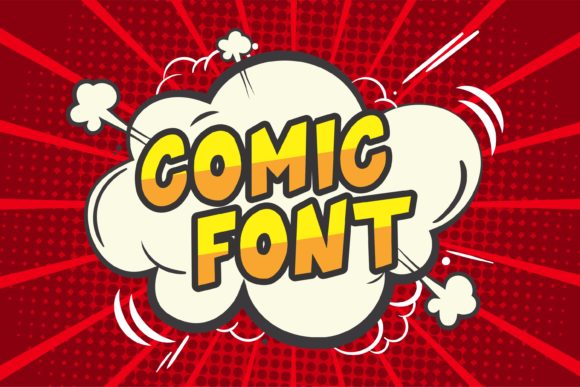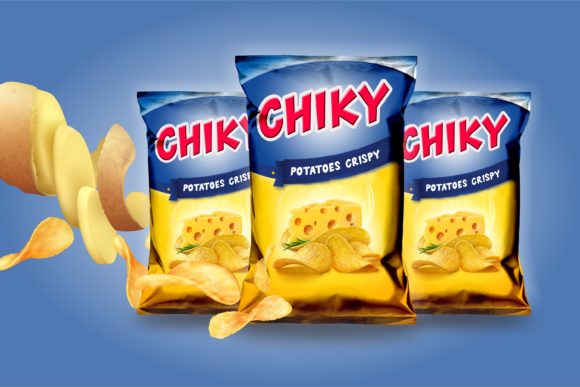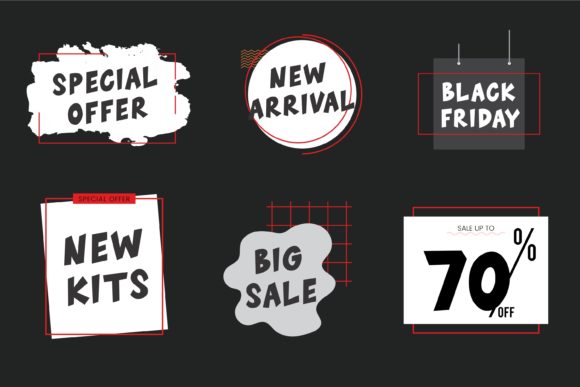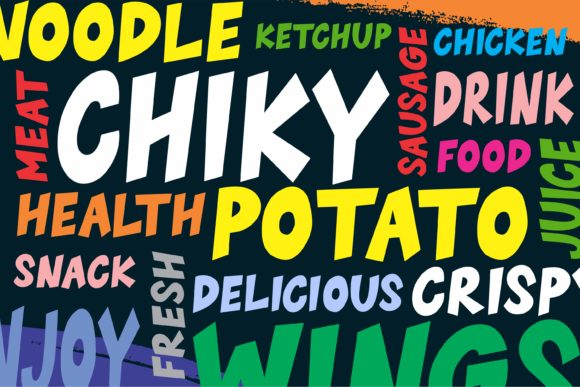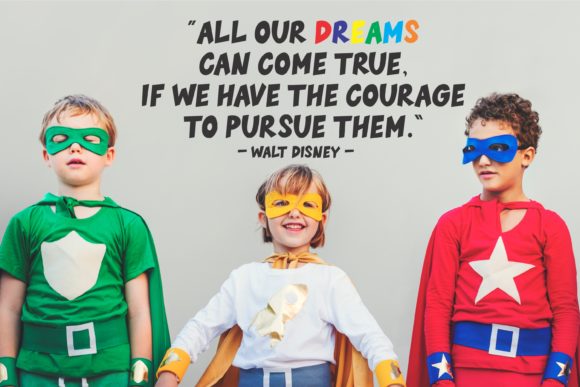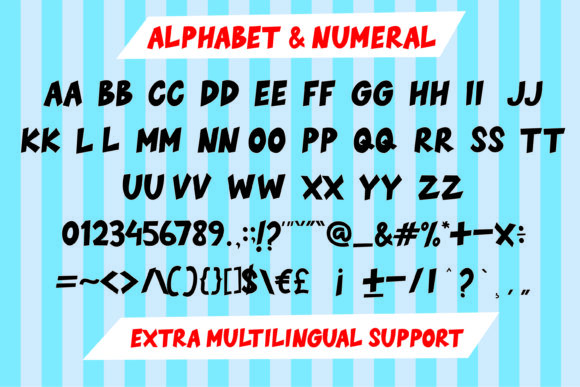
The Ultimate Guide to Black Friday Font: A Designer’s New Best Friend
I’ll never forget the design project that led me to discover the Black Friday Font. I was working on a client’s e-commerce website, tasked with creating an eye-catching promotional banner for their biggest sale of the year. The problem was, I just couldn’t find the right font to make it pop. That was until I stumbled upon Black Friday Font, and let me tell you, it was love at first sight! ✨
- ✅ Versatility: Black Friday Font is incredibly versatile, making it perfect for a wide range of design projects, from bold headlines to eye-catching posters.
- ✅ Readability: Despite its bold nature, this font remains remarkably readable, even on busy backgrounds or at smaller sizes.
- ✅ Casual Charm: Black Friday Font has a wonderfully down-to-earth feel, adding a touch of personality to any design.
A Few Quirks to Consider
While Black Friday Font is an excellent choice for many projects, there are a few things to keep in mind:
- ⚠️ Limited Formality: Due to its casual nature, Black Friday Font might not be the best fit for projects requiring a more formal or traditional look.
- 🤔 Overuse: As with any bold font, be mindful of overusing Black Friday Font, as it can quickly become overwhelming.
The Story Behind Black Friday Font
While the true origins of Black Friday Font are shrouded in mystery, it’s said that the font was crafted by a talented type designer with a passion for creating versatile, easy-to-read fonts. Inspired by the energy and excitement of, well, Black Friday shopping, this designer aimed to create a font that would capture the essence of bold, eye-catching headlines.
| Font Name | Black Friday Font |
| Author | Girinesia |
| What makes Black Friday Font so versatile? | Black Friday Font’s bold yet readable design, combined with its casual charm, makes it suitable for a wide range of design projects, from posters and banners to digital interfaces and more. |
| Is Black Friday Font suitable for body text? | While Black Friday Font is primarily designed for headlines and titles, it can be used for body text in certain contexts. However, its bold nature may make it more suitable for larger text sizes or emphasis. |